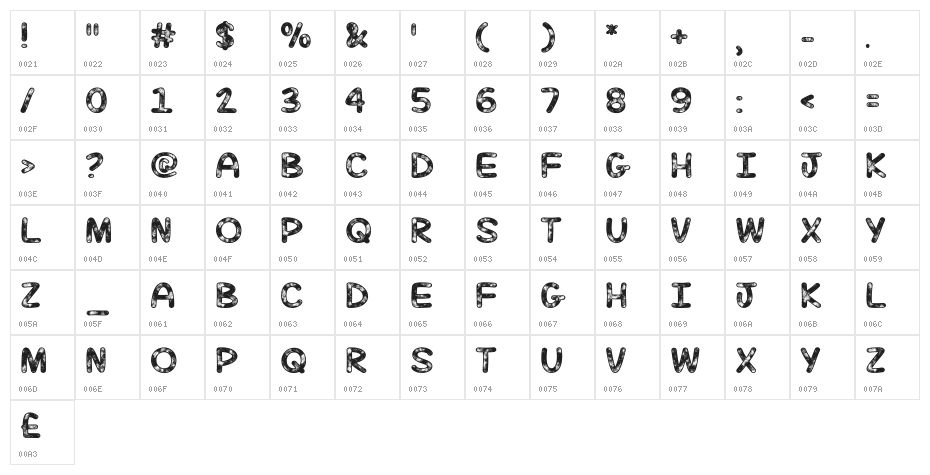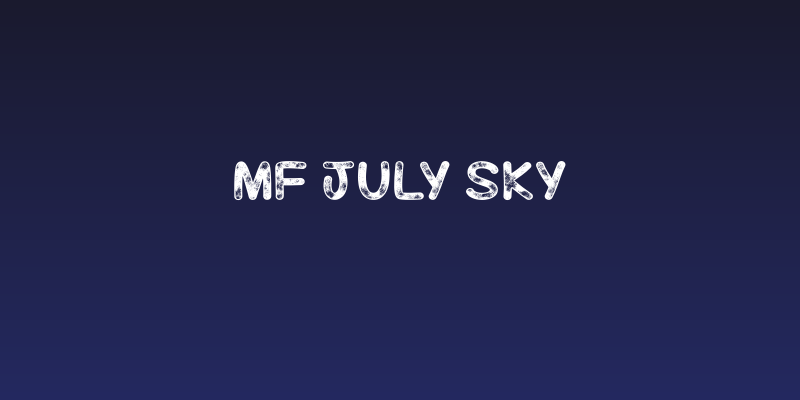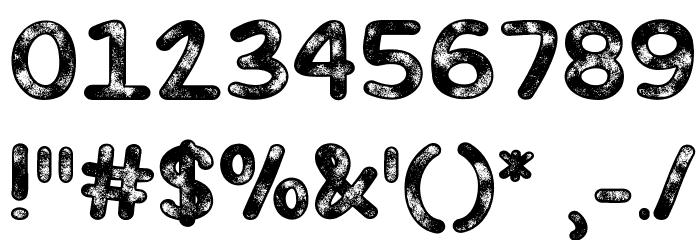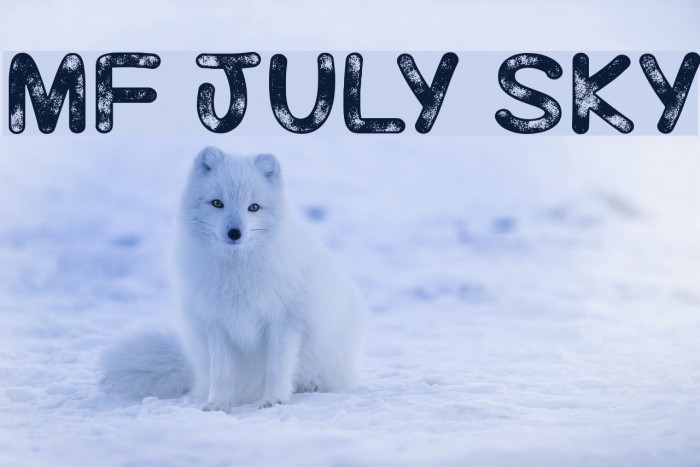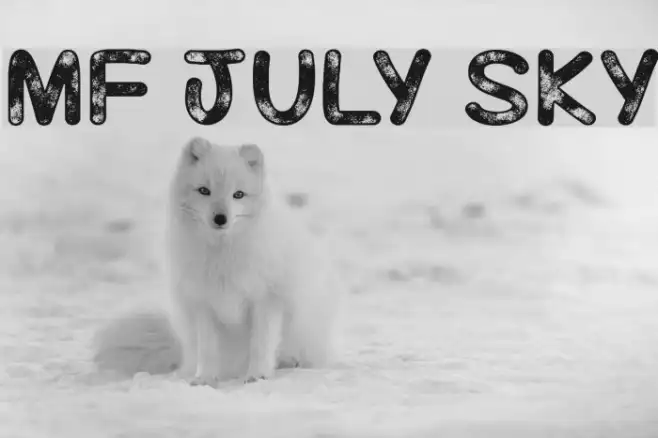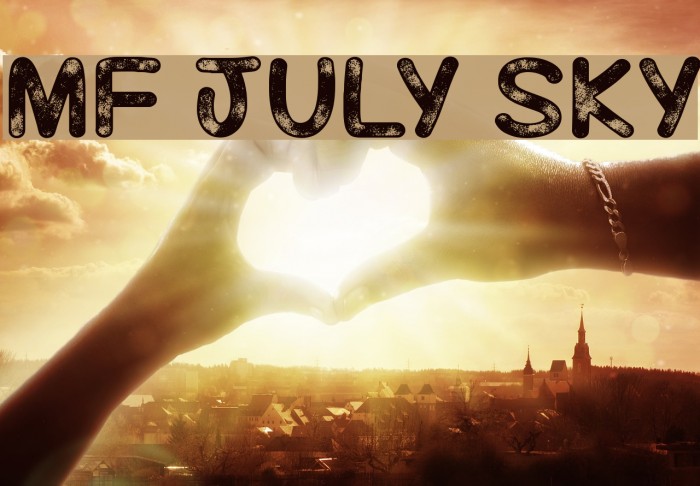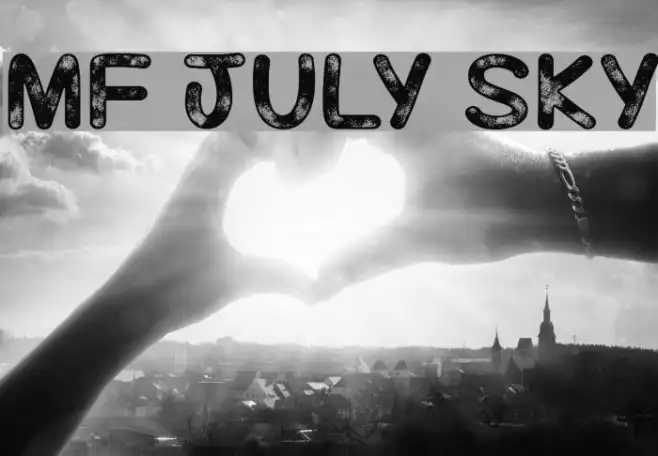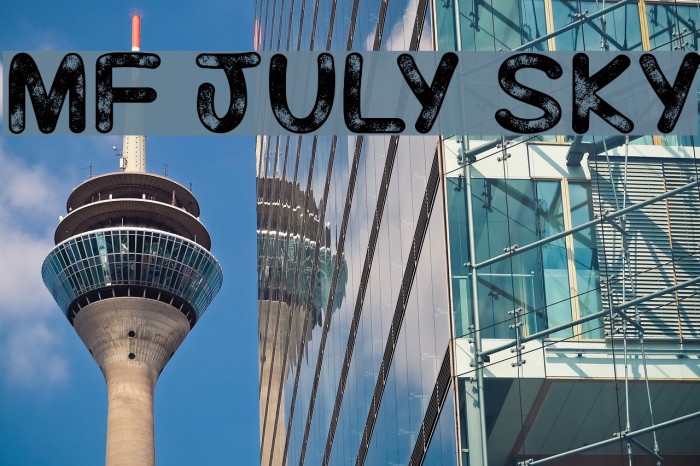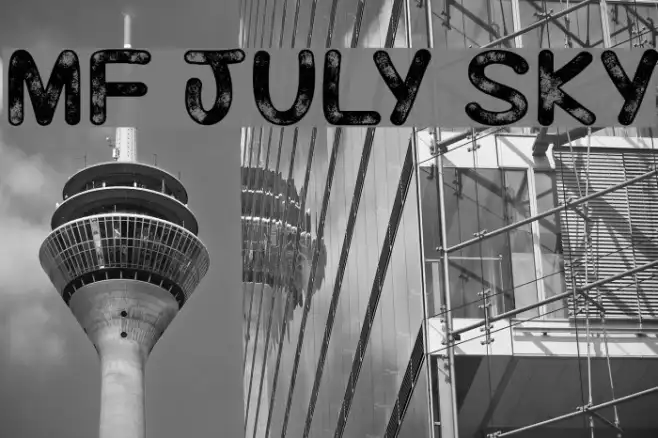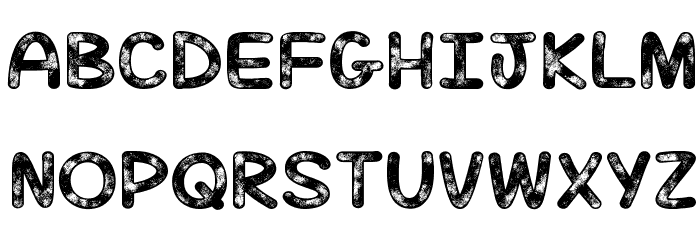
Mf July Sky Font
Mf July Sky Description
This font features a bold, playful style with a textured, distressed appearance that gives it a vintage and handcrafted feel. The characters are rounded and have a consistent thickness, which adds to their friendly and approachable look. The texture within each letter creates a sense of depth and interest, making it stand out in any design. The uppercase and lowercase letters maintain a uniform style, and the numbers and special characters are equally well-crafted, ensuring versatility across different uses.
| Proposed Projects | Ideal for projects that require a playful and eye-catching design, such as posters, children's books, branding for artisanal products, or event invitations. |